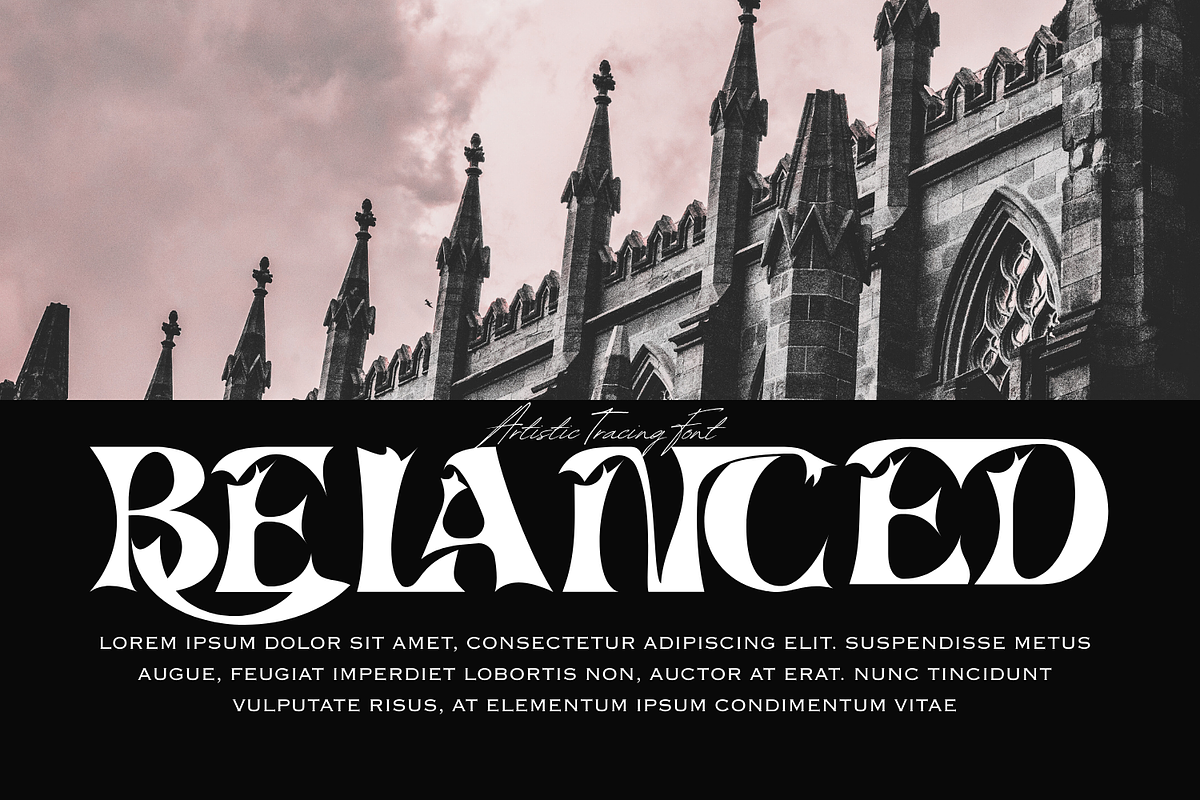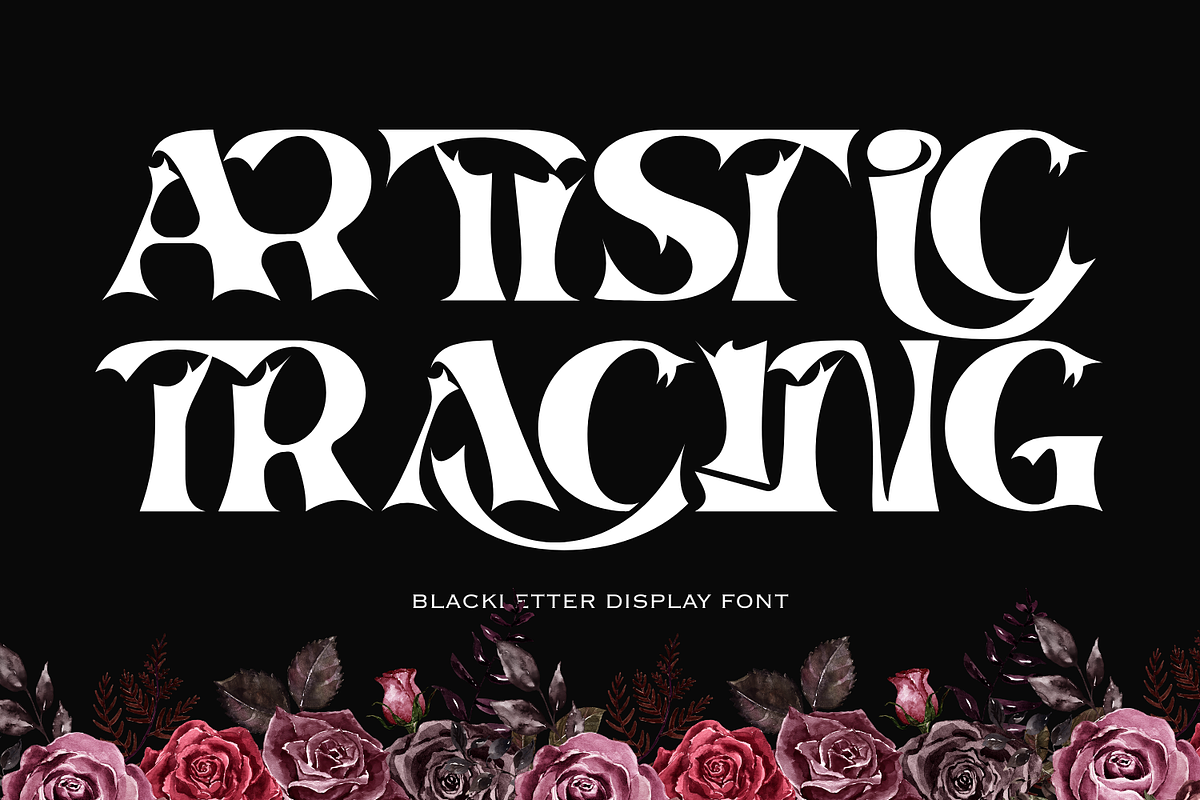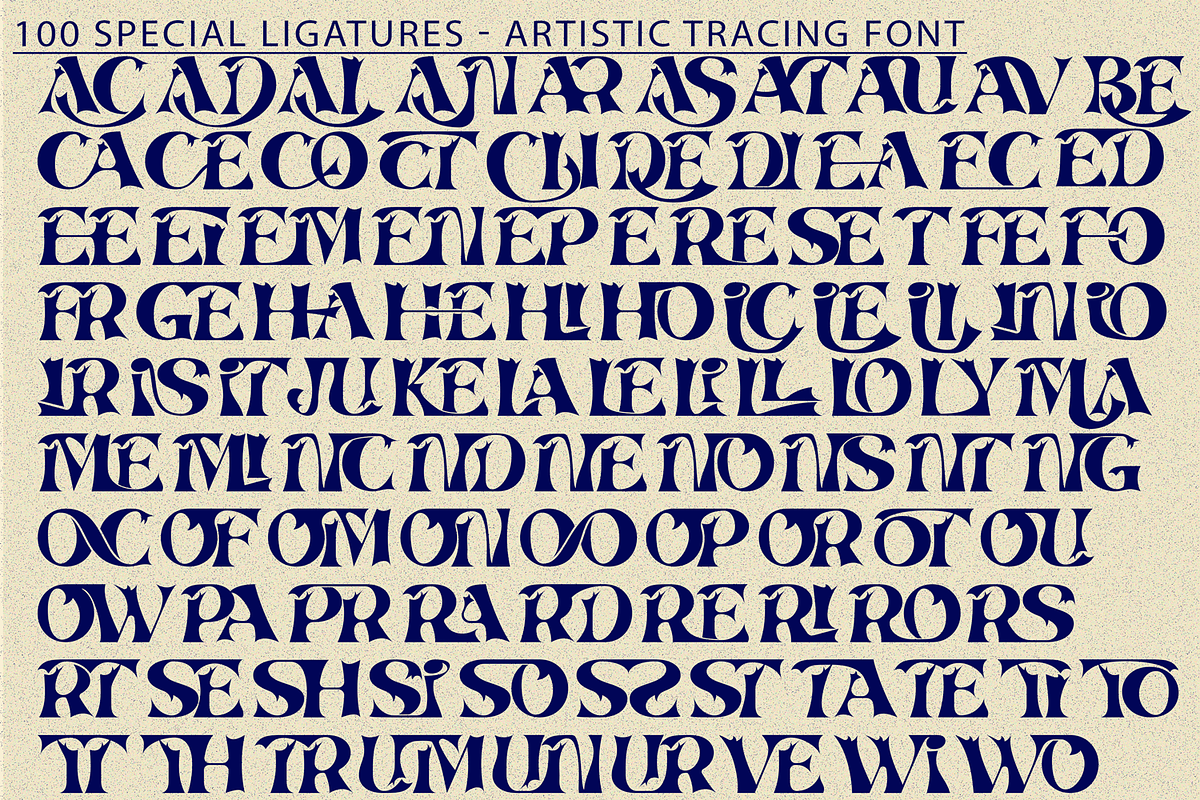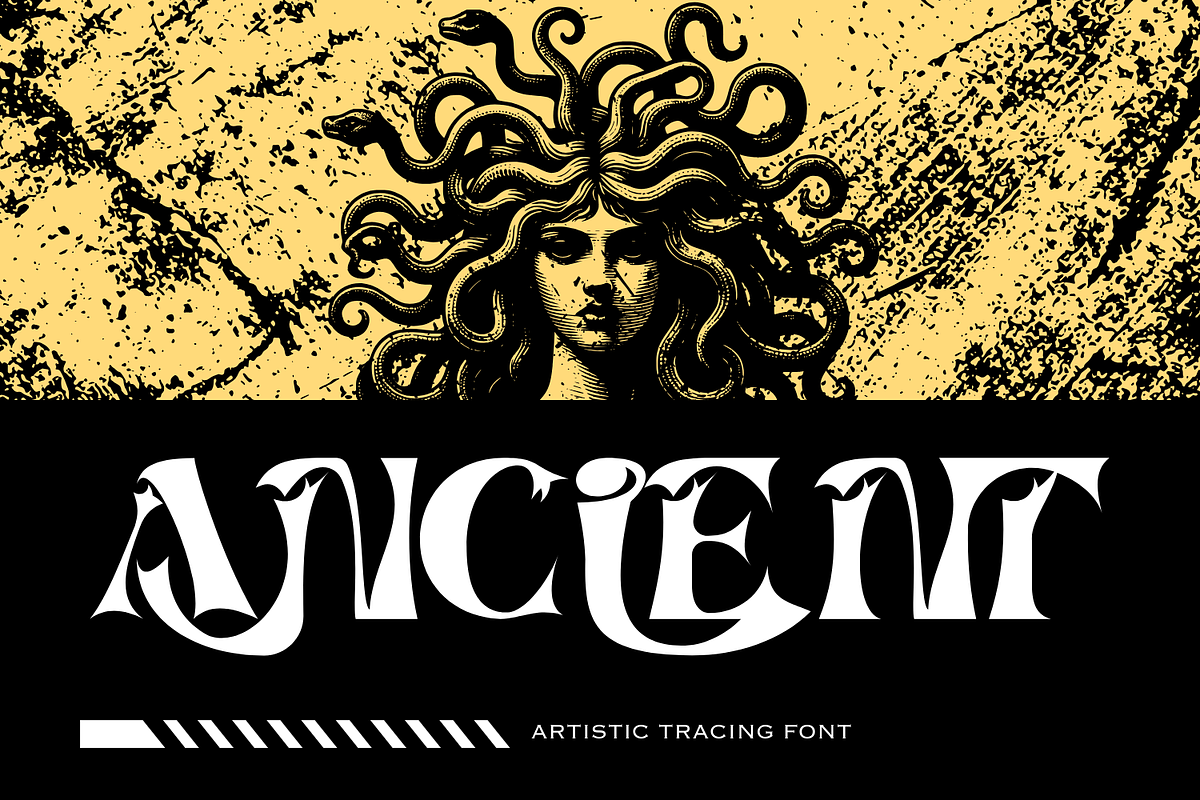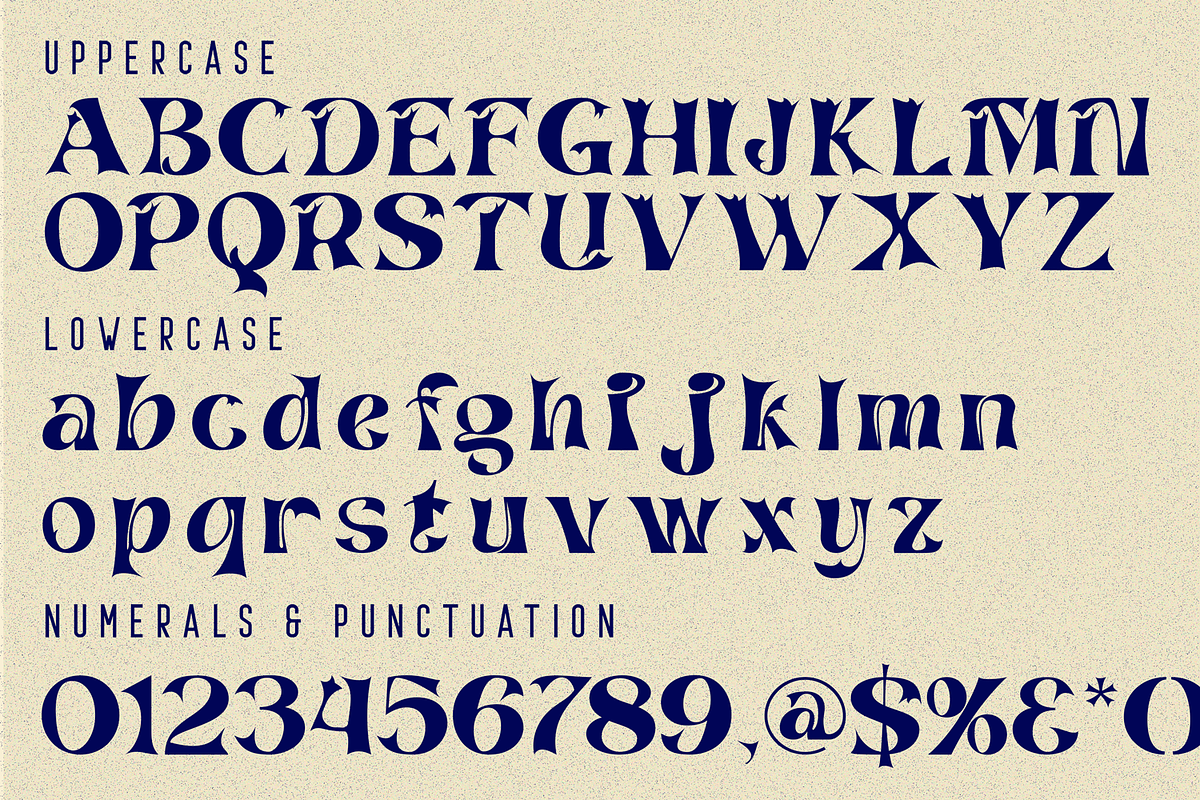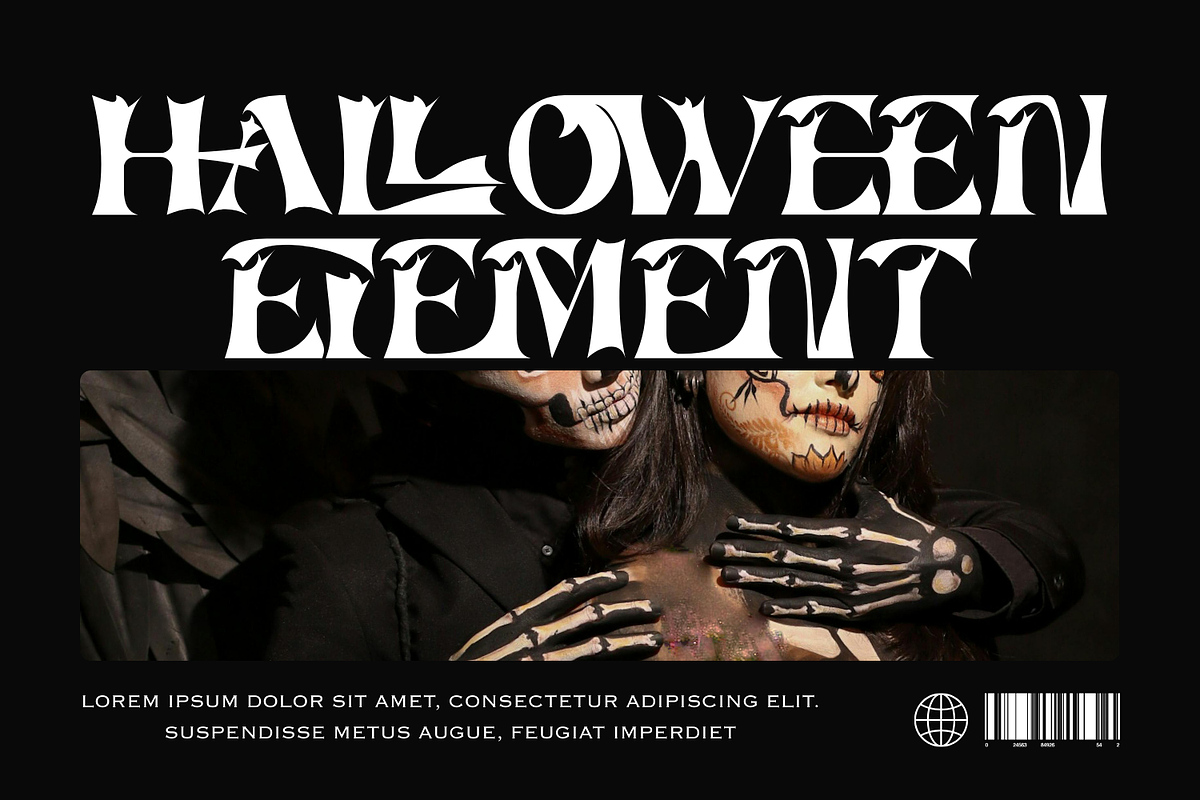
ARTISTIC TRACING - FANTASY FONT
ARTISTIC TRACING - FANTASY FONT is a decorative gothic serif display typeface inspired by medieval lettering and dark fantasy aesthetics. Featuring dramatic high-contrast strokes, sharp claw-like serifs, and expressive ornamental ligatures, this font delivers a bold and mysterious visual presence. Including both Uppercase and Lowercase letters, approximately 100 custom special ligatures, complete Numerals & Punctuation, and extensive Accented characters, ARTISTIC TRACING allows designers to craft striking, fantasy-inspired typographic compositions. Its sharp details, flowing swashes, and powerful letterforms make it perfect for gaming, metal album covers, fantasy posters, gothic branding, and dramatic headline designs.
🔤Features:
- Uppercase & Lowercase Letters
- Around 100 Special Ligatures & Alternates
- Accented Characters for multilingual support
🔤About 100 ligatures combined with Stylistic Alternates Font:
AC AD AL AN AR AS AT AU AV BE CA CE CH CO CT DE DI EA EC ED EE EL EM EN EP ER ES ET FE FO FR GE HA HE HI HO IE IC IL IN IO IR IS IT JU KE LA LE LI LL LO LY MA ME MI NC ND NE NG NO NT NS OC OF OM ON OO OP OR OT OU OW PA PR RA RD RE RI RO RS RT SE SH SI SO SS ST TA TE TH TI TO TR TT UM UN UR VE WI WO